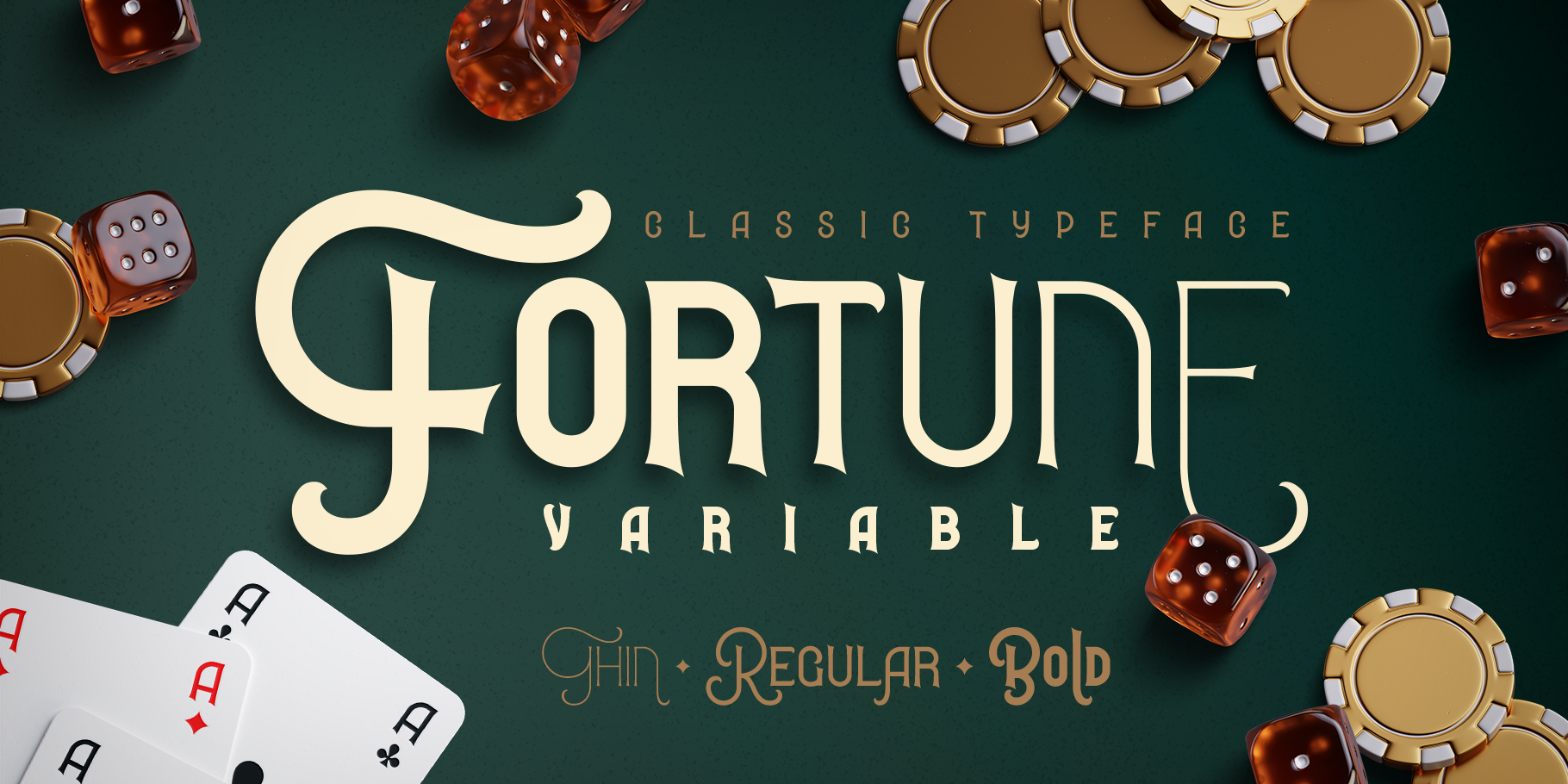
Fortune Font is perfect for luxury financial services, wealth management branding, premium investment firms, high-end casino signage, prosperity coaching materials, exclusive membership clubs, fortune telling businesses, luxury lifestyle magazines, and affluent social media campaigns. This prestigious typeface brings financial success and prosperous elegance to both digital and print design applications.
Fortune Font is exciting because it embodies the essence of wealth and financial prosperity, making it an exceptional choice for designers who want to convey success and abundance with authentic luxury appeal. Its opulent letterforms and prestigious character provide the perfect combination of financial sophistication and prosperity symbolism, ensuring your projects communicate wealth, success, and fortune excellence that resonates with audiences seeking genuine prosperity and financial achievement.
The Fortune Font family includes wealthy weight variations and prosperity elements, featuring light, regular, and bold weights with complementary luxurious styles, golden ligatures, and abundance-inspired decorative flourishes. Each style maintains consistent prosperous aesthetics while offering flexibility for different wealth applications, allowing designers to create affluent visual systems that reflect financial success and luxury lifestyle principles.
Whether you're designing for financial brands, luxury services, or prosperity-focused businesses, Fortune Font Free Download delivers authentic wealth appeal and financial sophistication that connects with audiences seeking genuine success and prosperity experiences. This premium typeface offers designers the luxurious elegance and prosperous charm needed to create designs that communicate financial excellence, wealth achievement, and fortune building effectively. The font's affluent character makes it perfect for financial branding, luxury campaigns, and prosperity applications where authentic wealth symbolism is essential. Download Fortune Font today and prosper your creative projects with genuine financial sophistication and wealthy typography excellence that defines success standards.